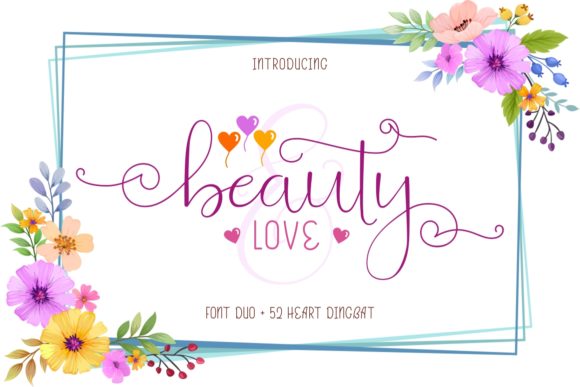
Introducing the Beauty and Love Duo Font: Elevate Your Designs with Elegance and Whimsy
Are you a designer or crafter looking for a font duo that can add a touch of elegance and playfulness to your creations? Look no further than the Beauty and Love Duo Font. This stunning font set is designed to help you create beautiful and unique designs that will leave a lasting impression. In this article, we’ll dive into the features and benefits of the Beauty and Love Duo Font and explore how it can elevate your designs.
A Trio of Styles to Suit Your Design Needs
The Beauty and Love Duo Font is not just a single font, but a versatile set of three styles that can be used together or separately to create a wide range of designs. The three styles include:
- Script Version: A modern and feminine script font that exudes love and elegance. This font is perfect for creating romantic and sophisticated designs.
- Sans Version: A cute and playful typeface that adds a fun touch to your designs. This font is great for creating playful and youthful designs.
- Dingbat Version: A collection of 52 beautiful heart symbols in various styles that can add a touch of whimsy and romance to your designs.
Each version of the Beauty and Love Duo Font works together perfectly, allowing you to mix and match styles to create a unique and cohesive design.
The Beauty and Love Duo Font is incredibly versatile and can be used for a wide range of design projects, including:
- Branding: Create a professional and elegant brand identity with the script or sans version of the font.
- Wedding Invitations: Use the script version to create romantic and sophisticated wedding invitations.
- Quotes and Prints: Add a touch of elegance and whimsy to your quotes and prints with the Beauty and Love Duo Font.
- Cards and Stationery: Create beautiful and unique cards and stationery with the dingbat version.
Why Choose the Beauty and Love Duo Font?
So why choose the Beauty and Love Duo Font over other font sets? Here are just a few reasons:
- Unique and Versatile: The Beauty and Love Duo Font is a unique and versatile font set that can be used for a wide range of design projects.
- Elegant and Playful: The font set combines elegant and playful styles, making it perfect for designers and crafters who want to add a touch of sophistication and whimsy to their designs.
In conclusion, the Beauty and Love Duo Font is a must-have font set for designers and crafters who want to add a touch of elegance and playfulness to their designs. With its versatile trio of styles, endless design possibilities, and ease of use, this font set is perfect for creating beautiful and unique designs. Whether you’re creating branding materials, wedding invitations, or quotes and prints, the Beauty and Love Duo Font is the perfect choice.